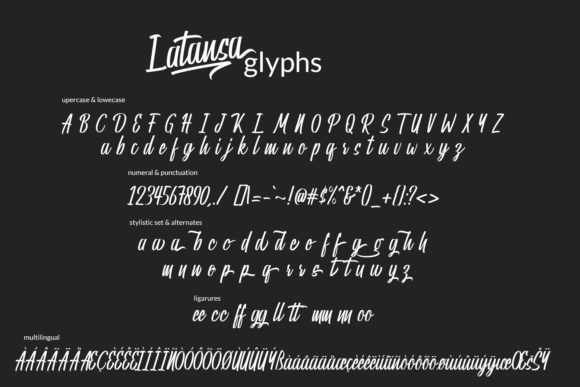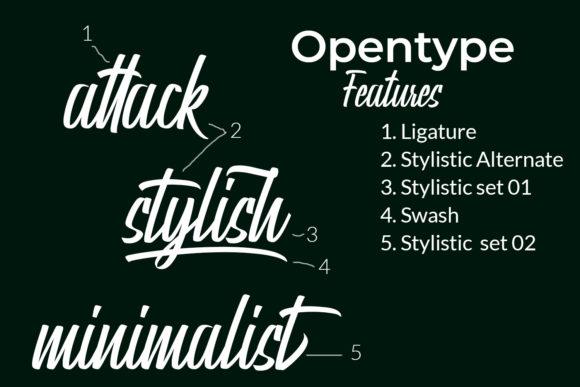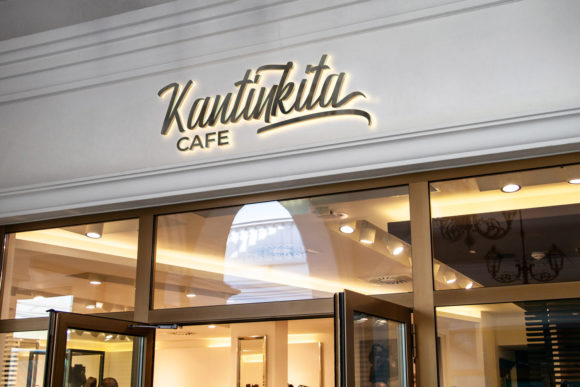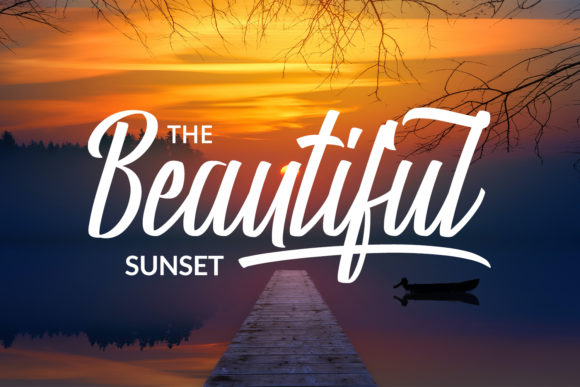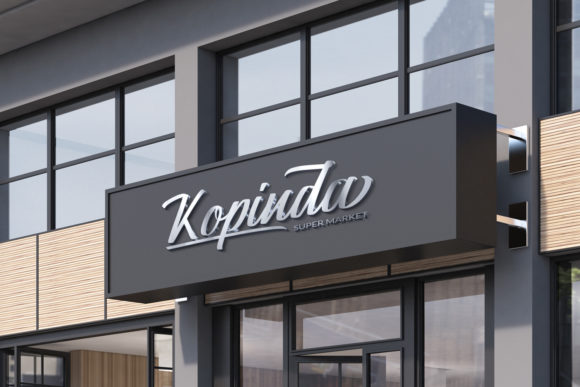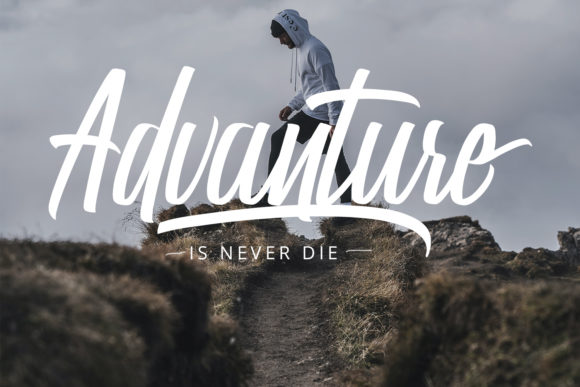
Introduction to Latansa Font Font
Fonts play a crucial role in design, and the Latansa Font font is a typeface that brings both character and versatility to any project. Whether you’re working on a branding project, a website, or a print design, the Latansa Font font offers a unique style that can elevate your work.
Latansa is a script font with a bold, elegant and stylish vibe.
This font is great for a wide variety of projects such as branding, invitations, logos, t shirts and anything that requires a handwritten style .
Key Features of Latansa Font Font
Why Choose Latansa Font Font?
The Latansa Font font is more than just a typeface – it’s a design tool that helps you communicate your message with style and clarity. Its unique character set and versatile design make it suitable for a wide range of applications, from elegant invitations to bold headlines.
With its carefully crafted letterforms and balanced proportions, the Latansa Font font ensures readability and visual appeal across all mediums.
What makes Latansa Font font special?
The Latansa Font font stands out with its unique design, exceptional readability, and versatility across various design applications.